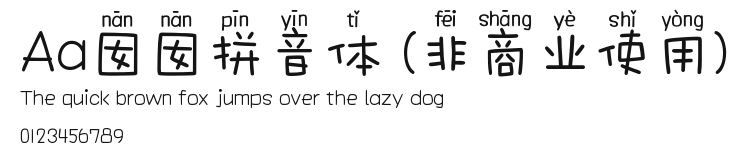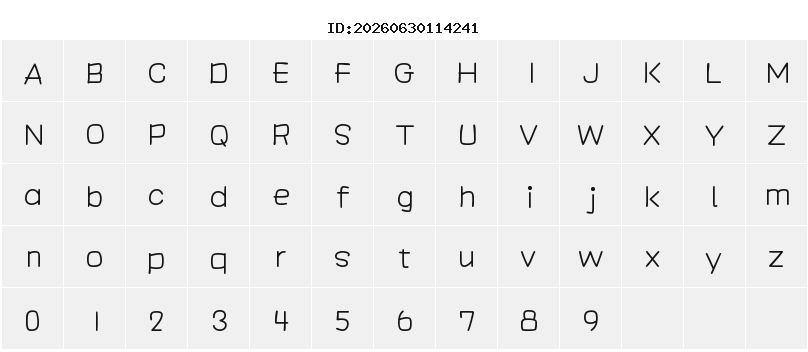
• Designer: Aa
• Manufacturer: 北京奇思众和科技有限公司
• Description: AaNananpinyinti (Non-Commercial Use) is a fantastic font with excellent features designed for user interfaces and electronic communications.
About Aa囡囡拼音体 (非商业使用).ttf
Aa囡囡拼音体 (非商业使用).ttf is a modern, elegant sans-serif font designed for ultimate readability and visual harmony. Perfect for branding, headlines, web design, and print materials.